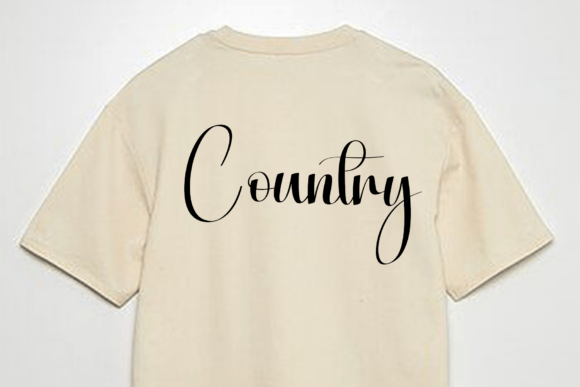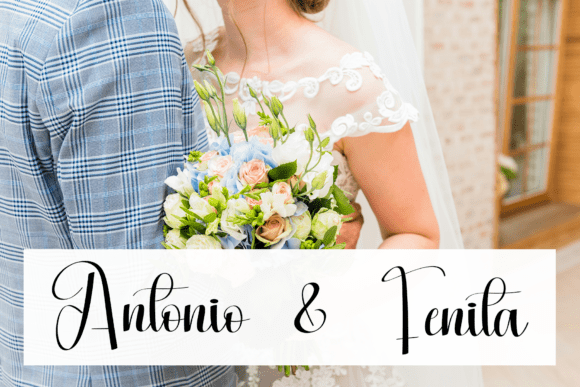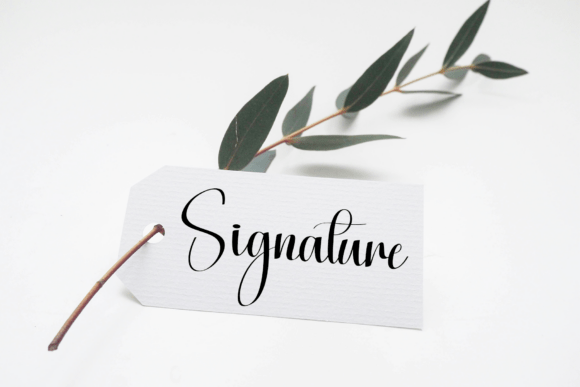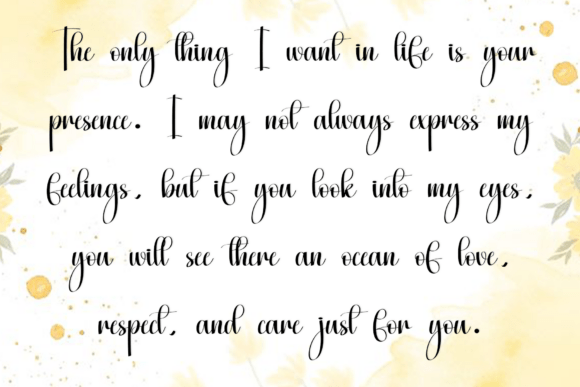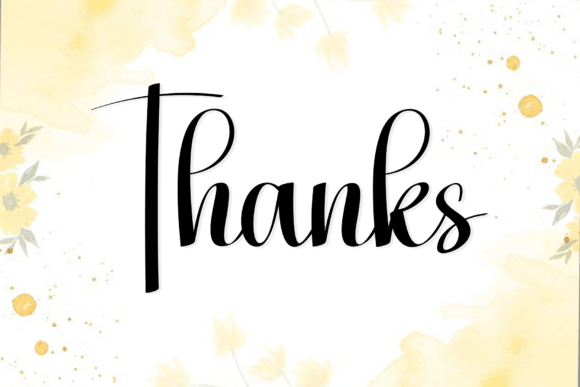
The Elegance of Freeday Font: A Designer’s Delight
I’ll never forget the time I was working on a luxury wedding stationery project, and my client asked me to create a custom invitation that exuded elegance and sophistication. I scoured the internet for the perfect font, but nothing seemed quite right. That was until I stumbled upon Freeday Font. ✨ This beautiful, handwritten script font captured the essence of modern sophistication, and I knew I had found the perfect fit.
An Honest Review of Freeday Font
- ✨ Elegant and fluid handwritten script that looks stunning in print and digital formats
- ✅ Perfect for luxury wedding stationery, intimate event branding, high-end editorial signatures, and sophisticated lifestyle photography overlays
- 💫 Highly legible, even at smaller font sizes
- 🎨 Versatile and can be used for a variety of design projects, from formal events to creative branding
While Freeday Font is an exceptional font, there are a few minor quirks to be aware of:
- 🤔 Some users may find the font’s elegance and sophistication limiting for more casual design projects
- ⚠️ The font’s script style may not be suitable for very large or bold text applications
- Experiment with OpenType features, such as glyphs and stylistic alternates, to add visual interest to your design
The Backstory of Freeday Font
Freeday Font was designed by a talented type designer who wanted to create a font that captured the essence of modern sophistication. The designer drew inspiration from classic script fonts, but with a modern twist. The result is a font that is both elegant and refined, yet approachable and versatile.
| Font Name | Freeday Font |
| Author | Black line |
Q: What is Freeday Font best used for?
A: Freeday Font is perfect for luxury wedding stationery, intimate event branding, high-end editorial signatures, and sophisticated lifestyle photography overlays.
Q: Is Freeday Font easy to read?
A: Yes, Freeday Font is highly legible, even at smaller font sizes, making it perfect for a variety of design applications.